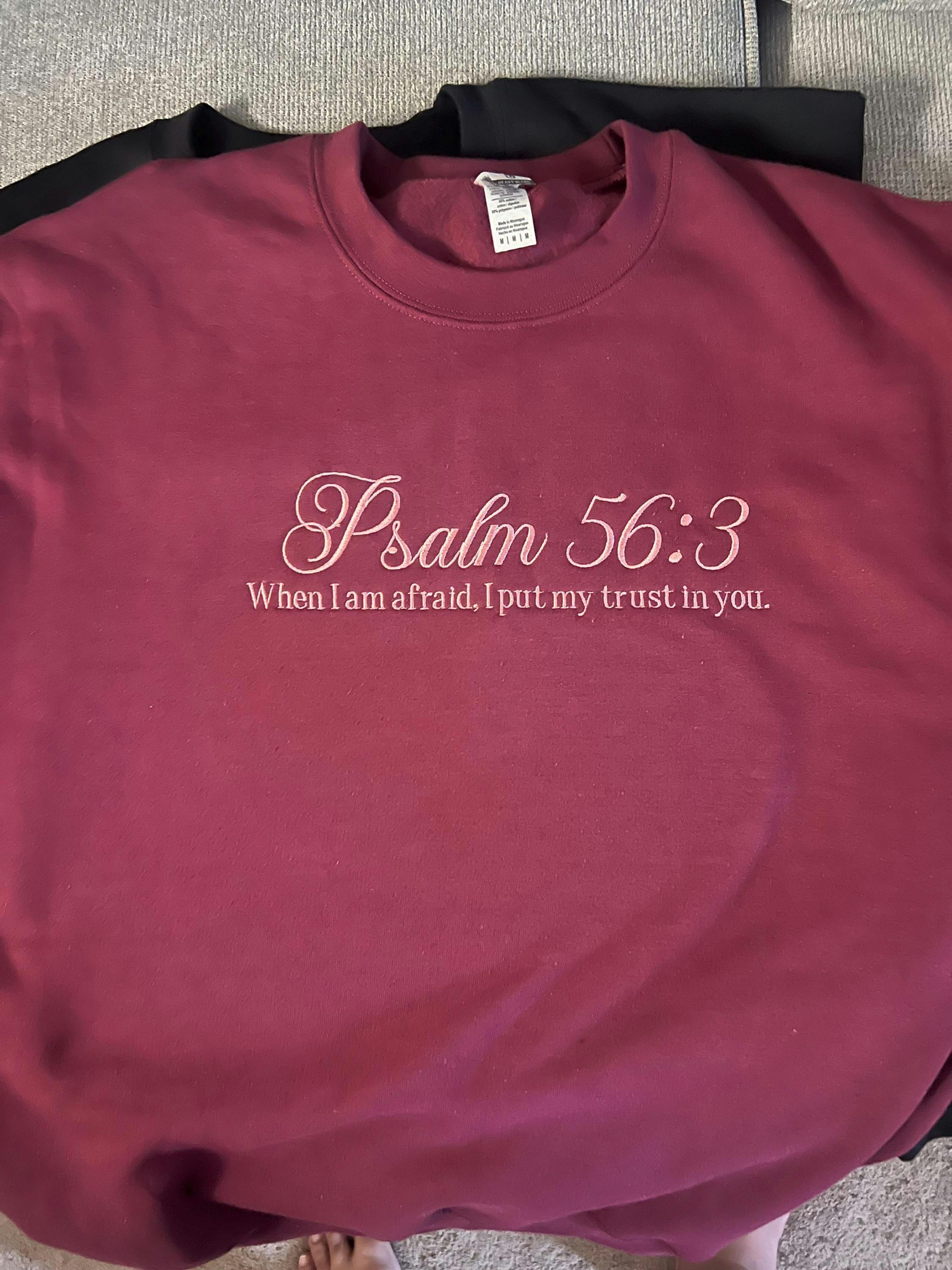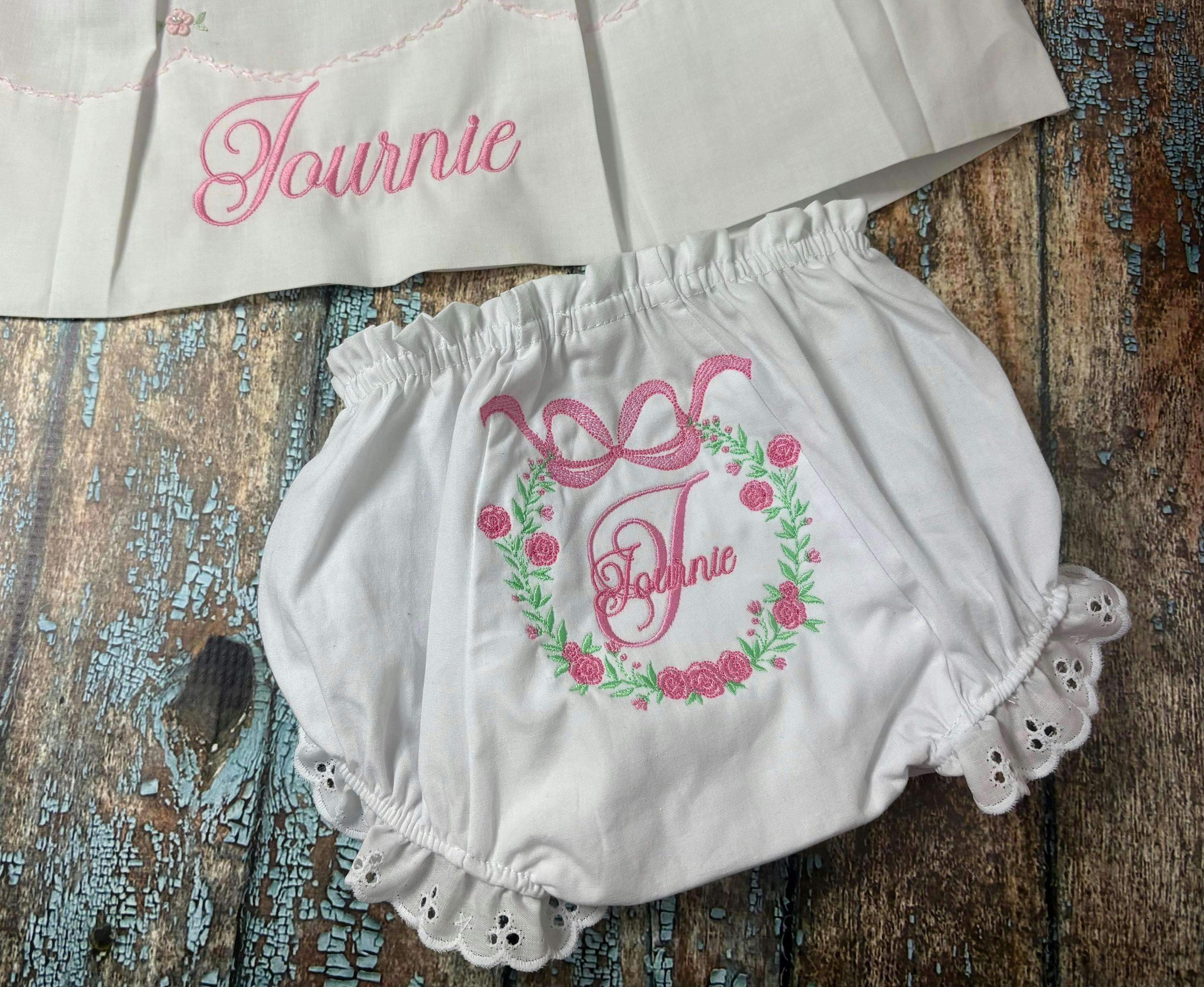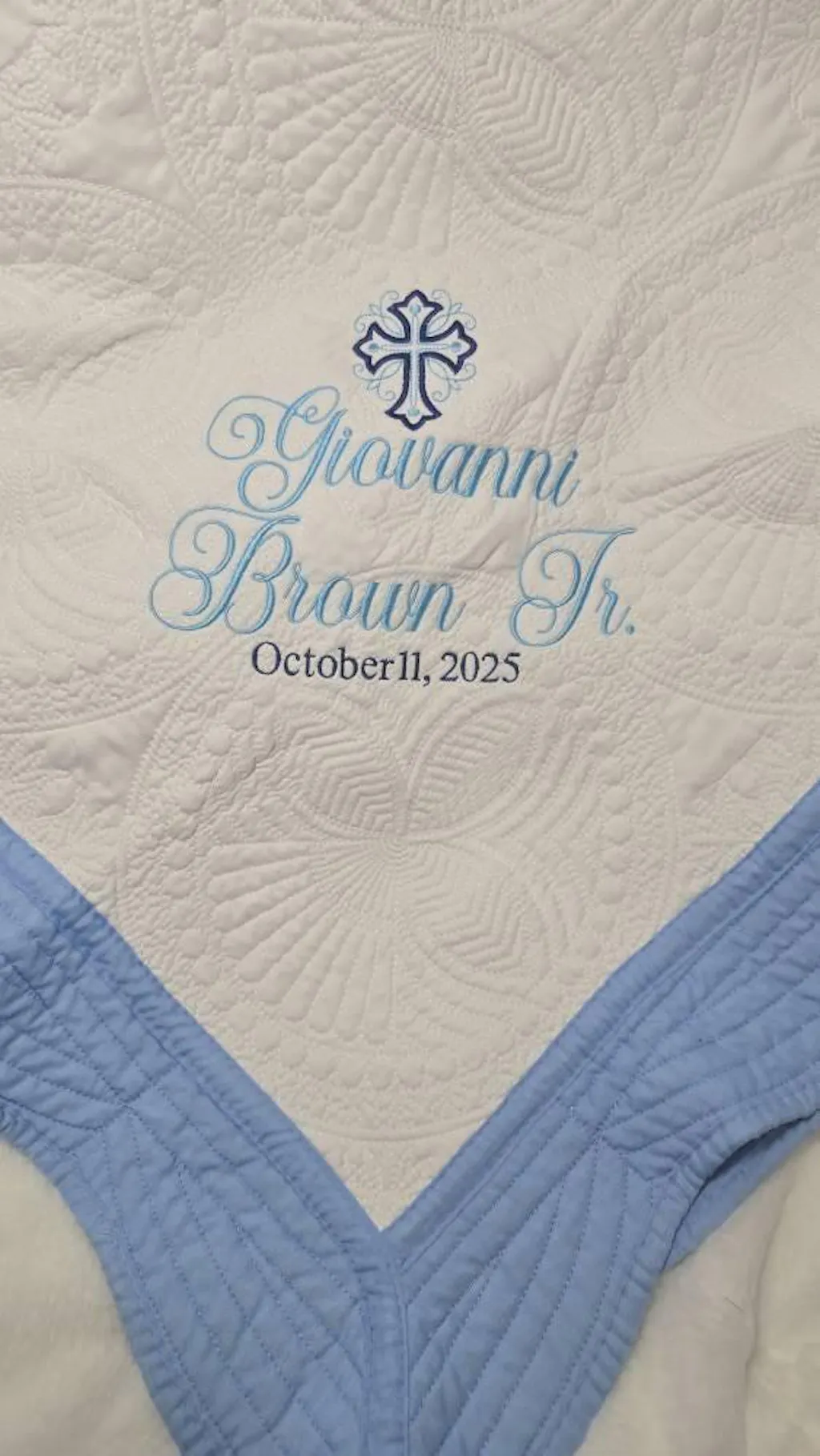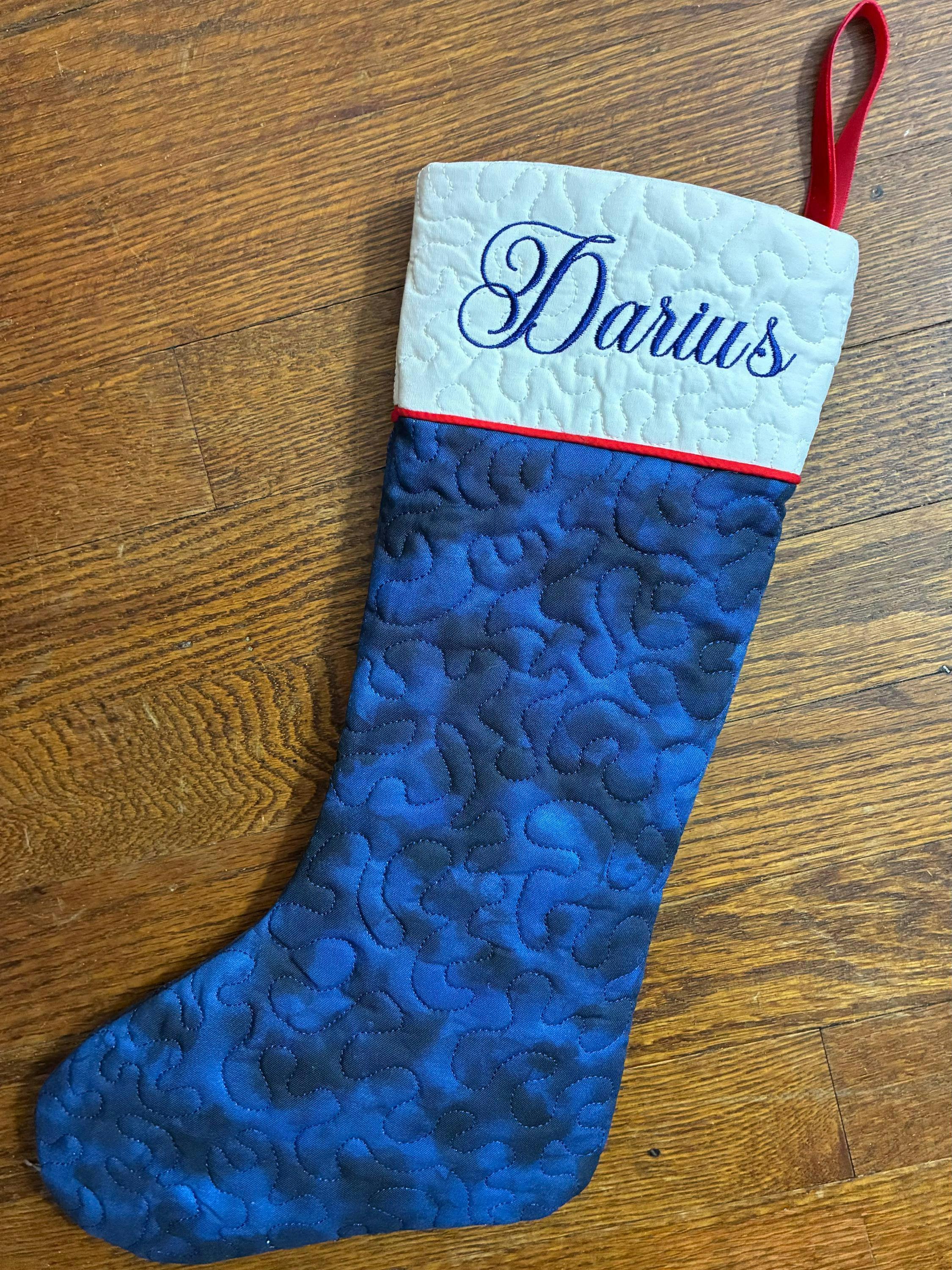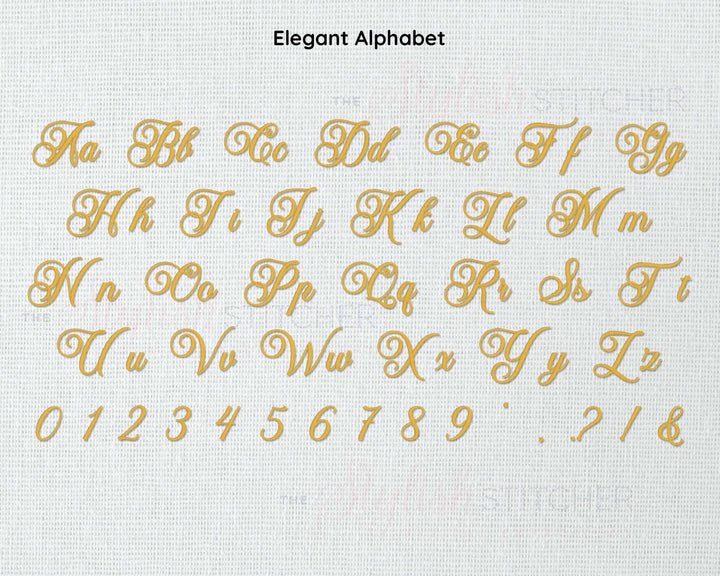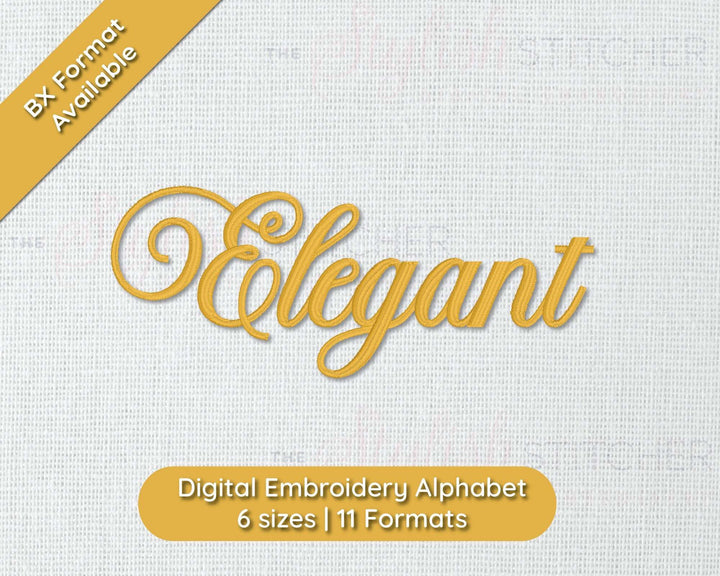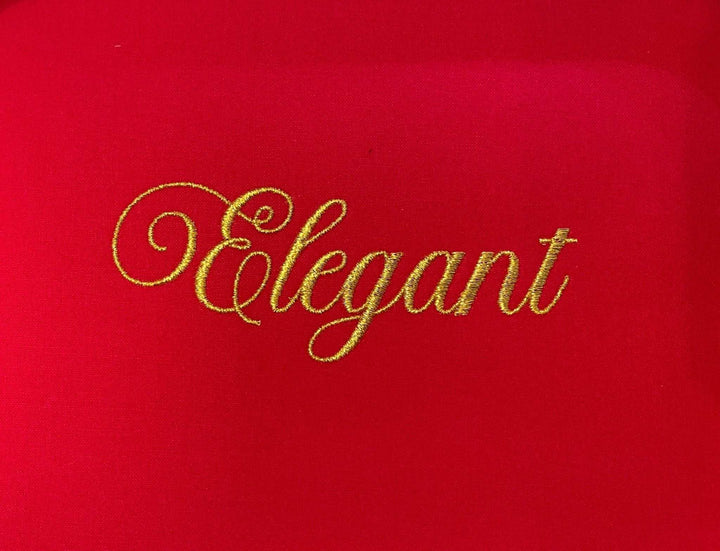
Photograph of Elegant embroidery font
Photograph of Elegant embroidery font alphabet
Photograph of stitched out Elegant embroidery font
Elegant Digital Embroidery Font
Step into a world of sophistication with Elegant, the machine embroidery font that speaks the language of luxury and refinement. With its graceful swirls and delicate flourishes, this font is the epitome of class and style. Tailored for the most discerning of projects, from high-end monograms to exquisite linens, Elegant ensures every stitch conveys exclusivity and prestige. Elevate your embroidery to an art form and let your creations whisper tales of opulence and grandeur with every loop and line. For a font that dresses your work in nothing but the finest, Elegant is the gold standard.